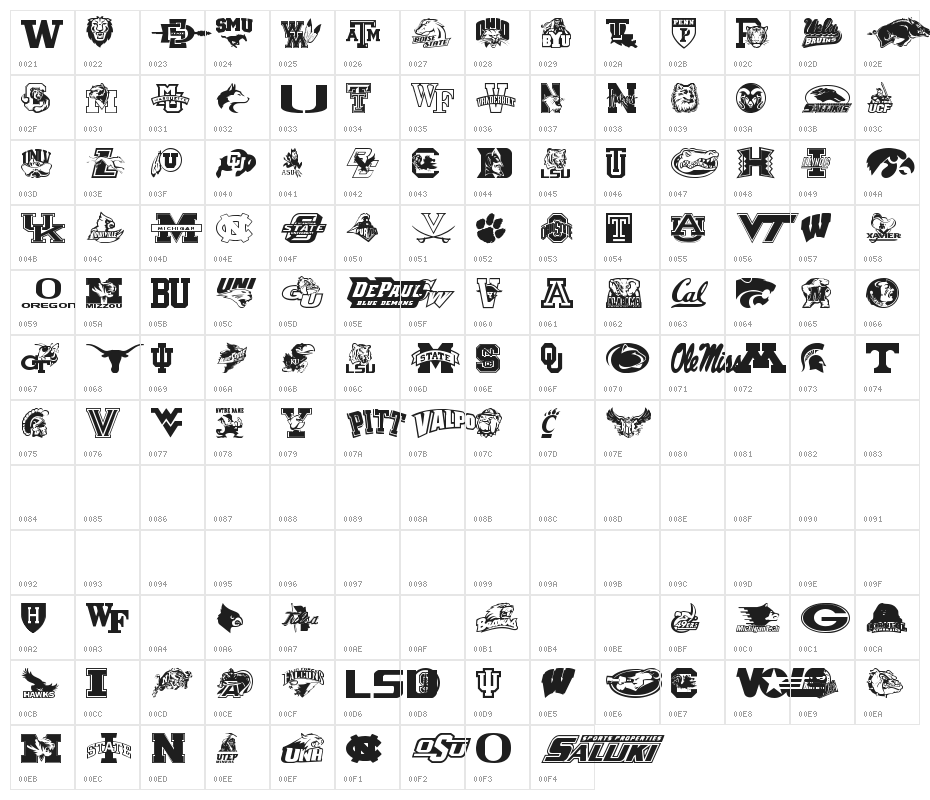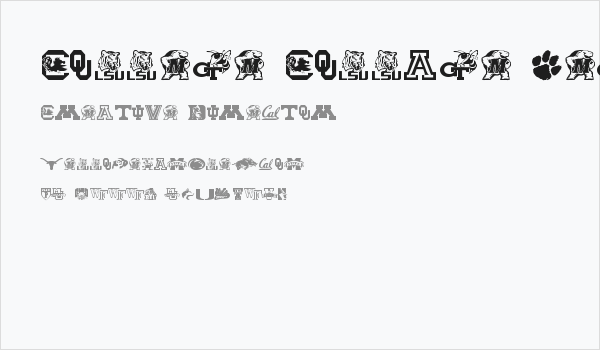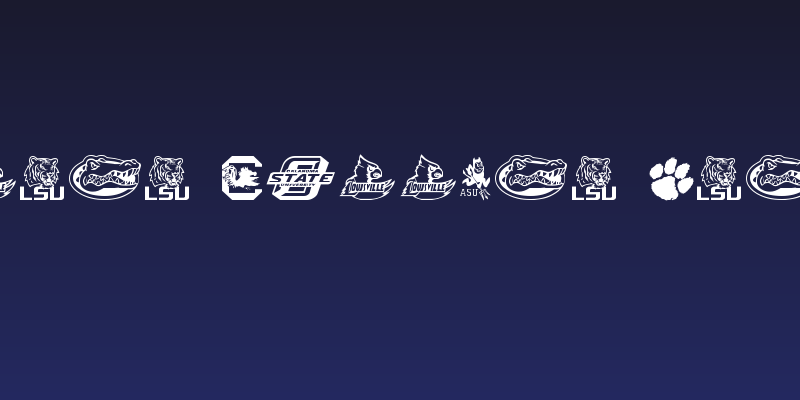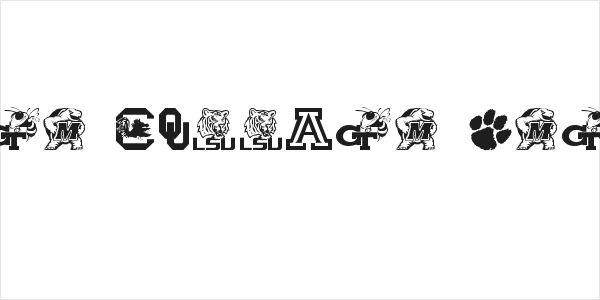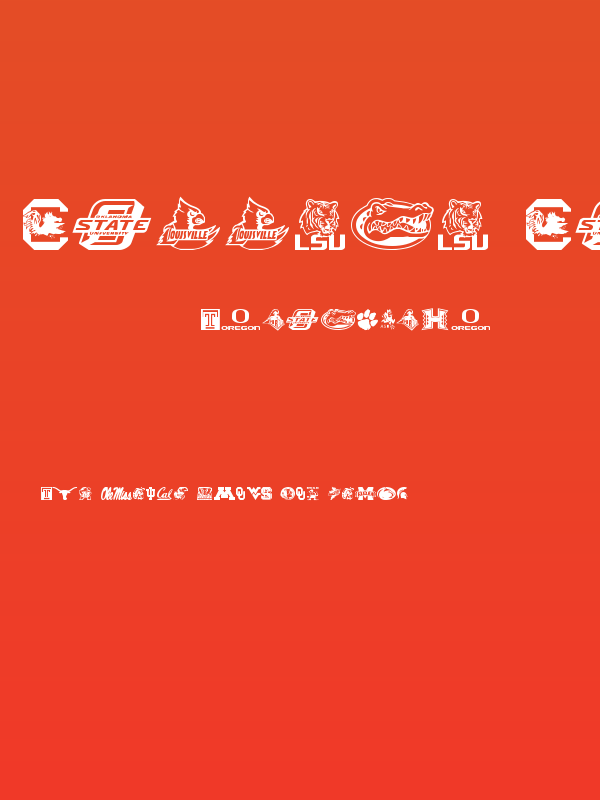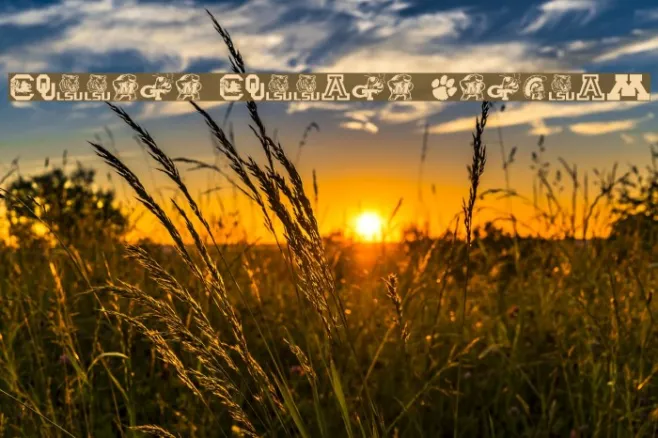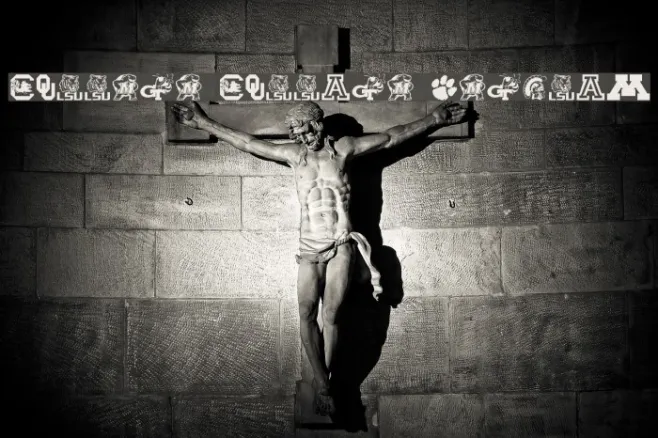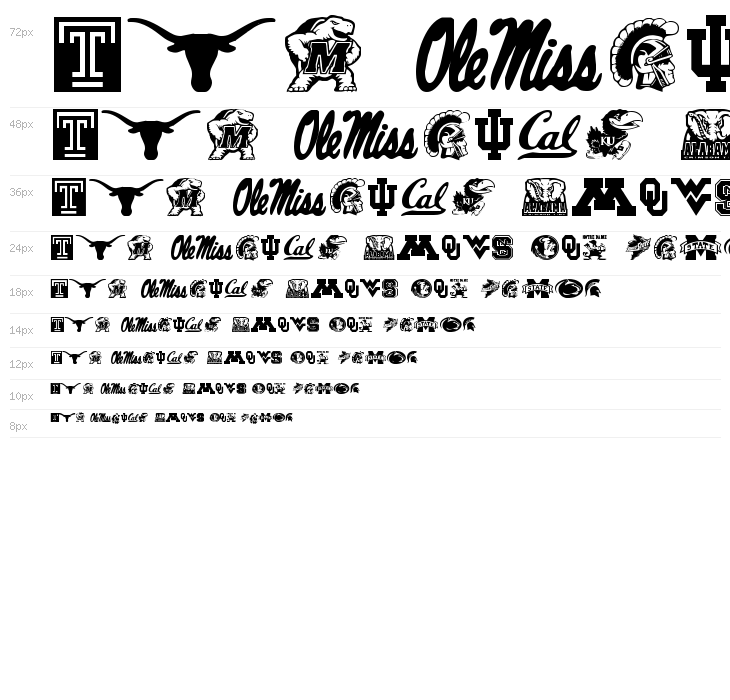
College Collage Regular Font
College Collage Regular Description
This font is a unique and creative collage of college logos and mascots, where each letter is represented by a different university's emblem. The design incorporates a variety of styles and elements, making it highly decorative and visually engaging. The letters are bold and feature intricate details, often including iconic symbols or mascots associated with each institution. This font is not uniform in style, as each character is distinct, reflecting the diverse branding of different colleges. The overall appearance is playful and nostalgic, appealing to those with an affinity for college sports and culture.
| Use Case | Logos, Merchandise, Posters |
| Proposed Projects | Ideal for projects related to college sports, university branding, fan merchandise, or any creative work celebrating collegiate culture. |